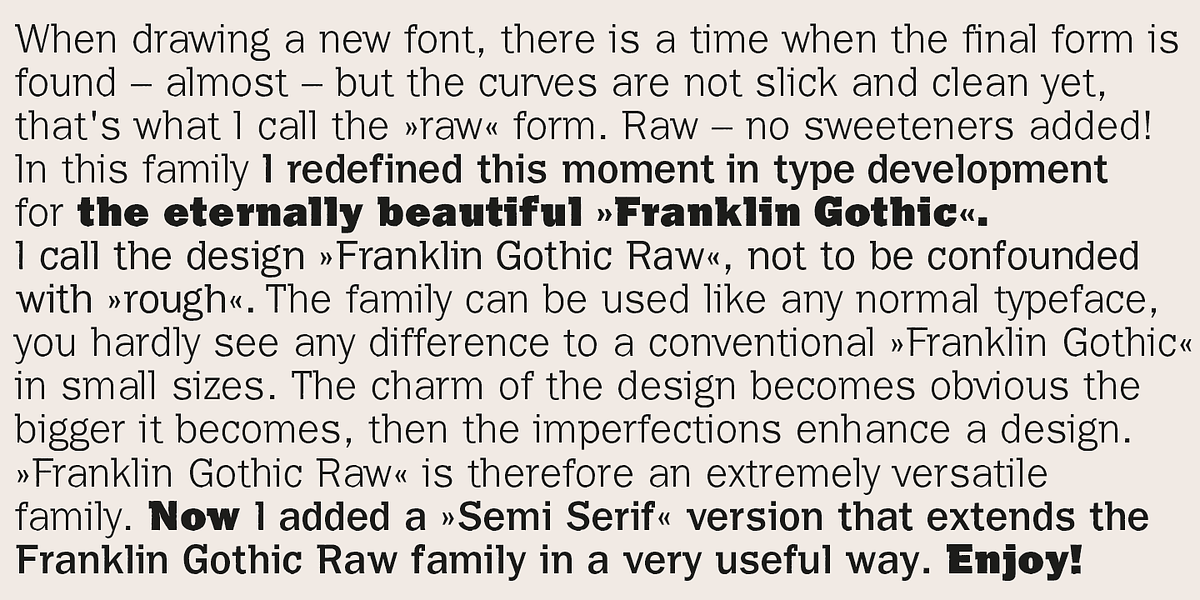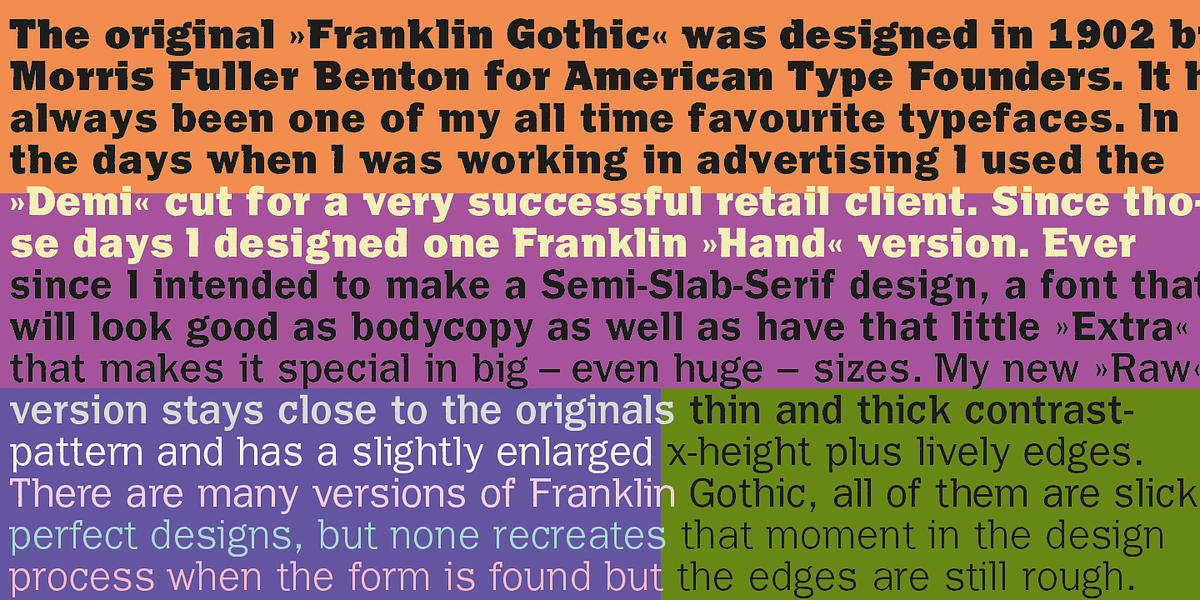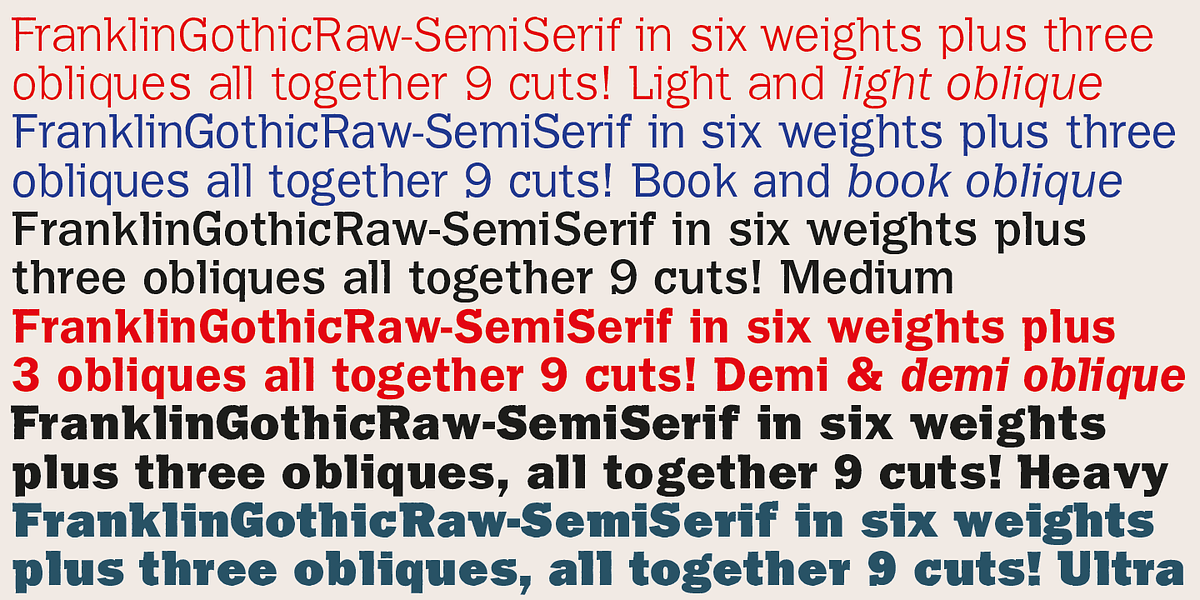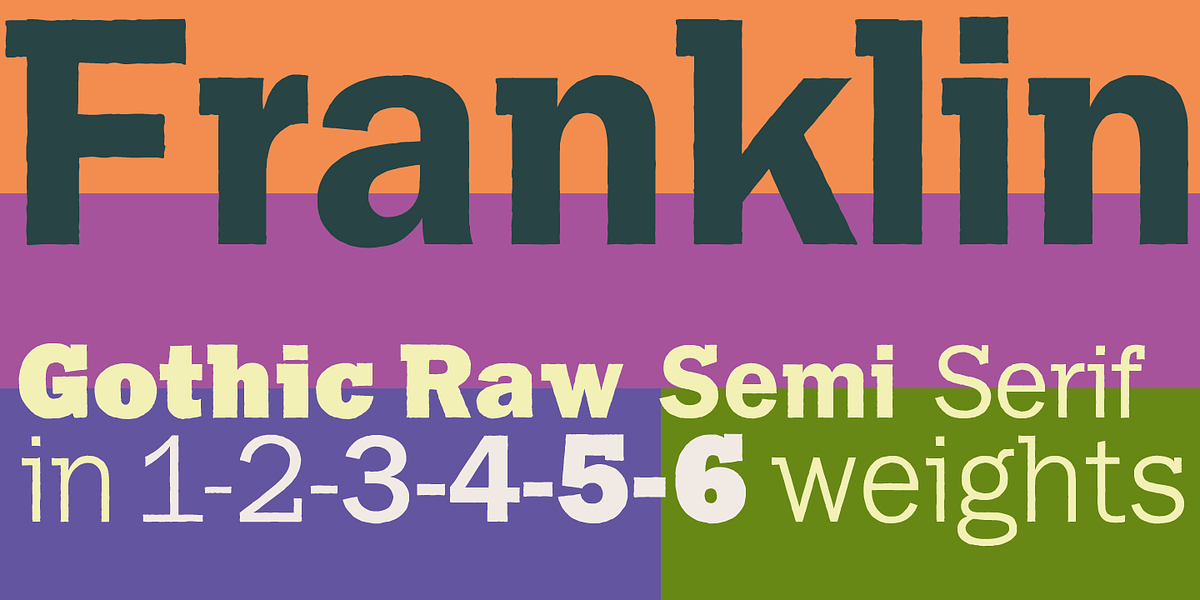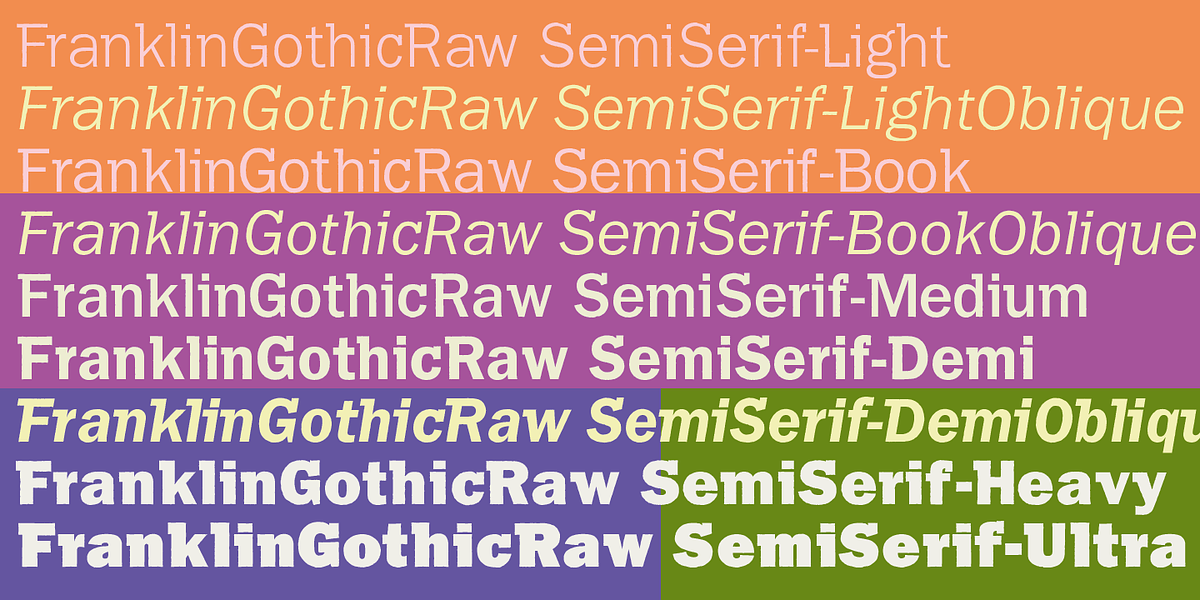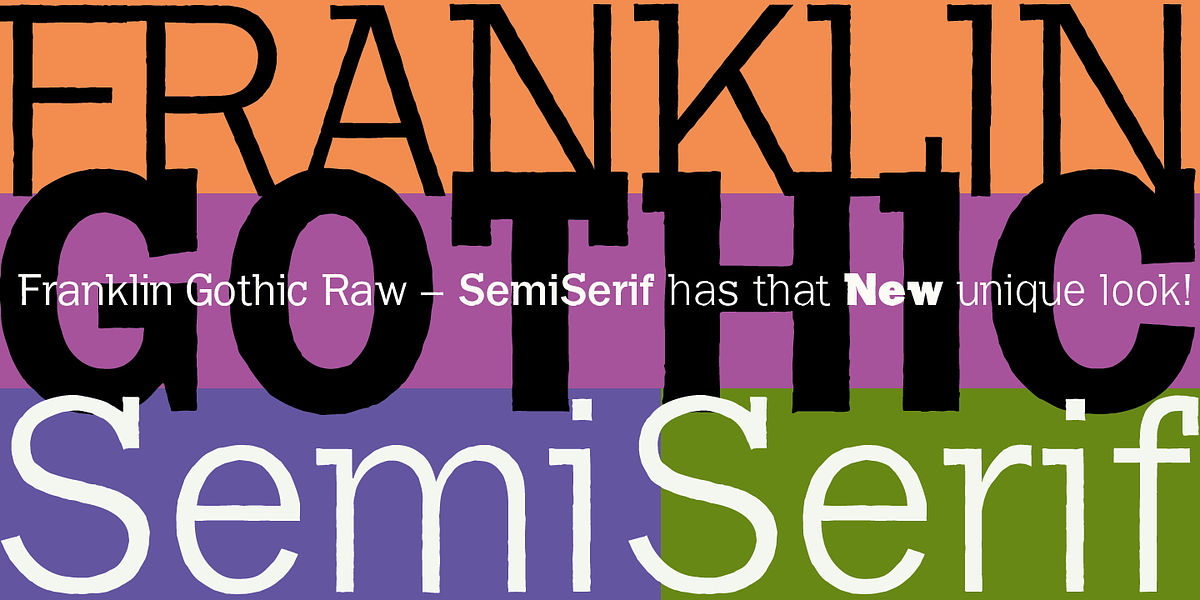
Franklin Gothic Raw Semi Serif
Franklin Gothic Raw Semi Serif is a typeface that reimagines the classic Franklin Gothic with a semi-serif twist. The designer describes it as capturing the 'raw' moment in font development, before the curves are refined and polished. This results in a typeface that is both informal and visually striking, well-suited for display use such as headlines and branding.